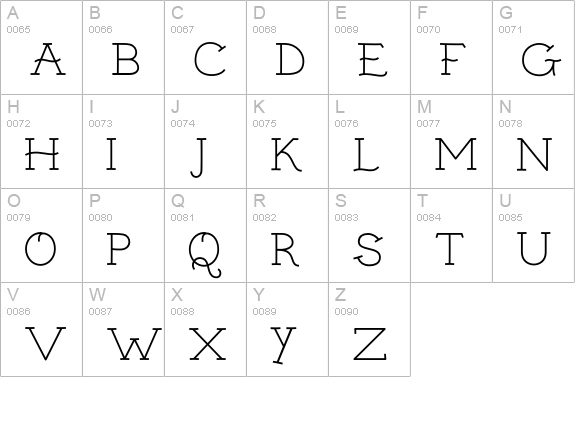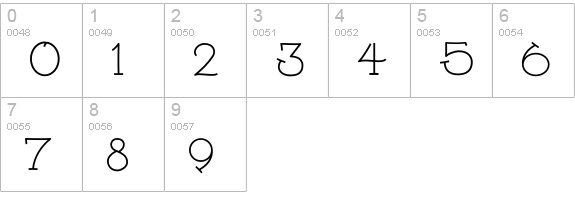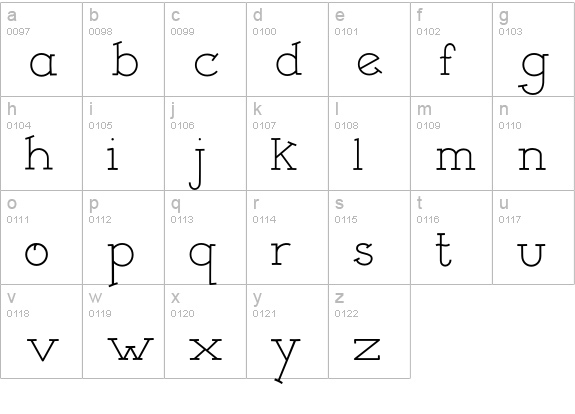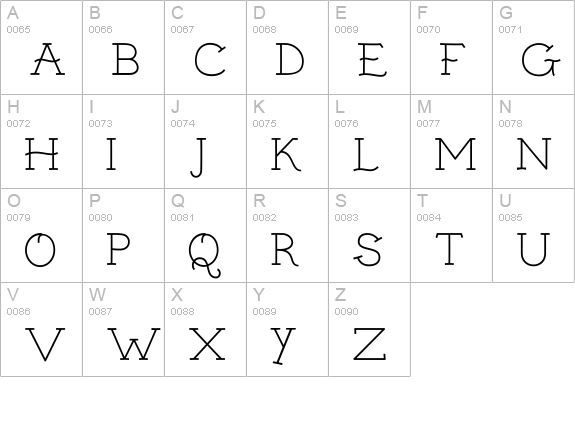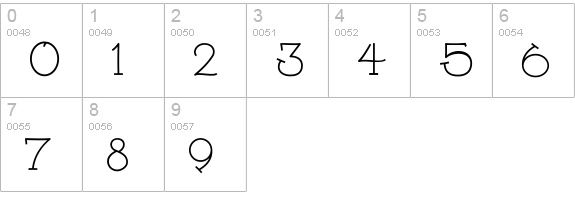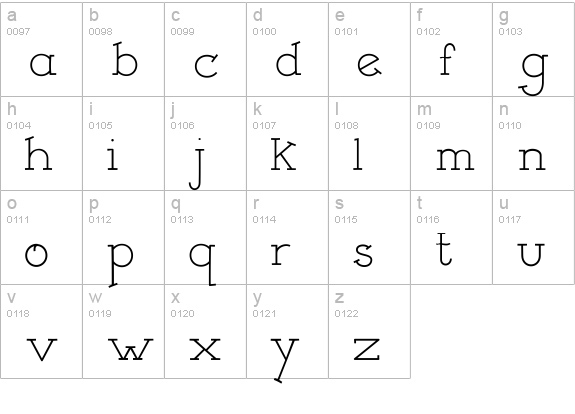
Sailor Gothic-Regular Font Details
Sailor Gothic-Regular is the standard, neutral variant in the Sailor typeface family \xE2\x80\x94 well suited to general body text, paragraphs, and standard typographic work.
Sailor Gothic-Regular font is a stunning display typeface that embodies the essence of the high seas, combining elegance with a touch of adventure. This versatile font is perfect for creating eye-catching headlines, captivating posters, and unique branding materials. Its bold and distinctive letterforms make a powerful statement, commanding attention and leaving a lasting impression. With its sleek and modern design, Sailor Gothic-Regular font is guaranteed to stand out from the crowd. Its sharp edges and clean lines evoke a sense of sophistication and professionalism, making it suitable for a wide range of projects, from corporate presentations to fashion editorials. One of the best things about Sailor Gothic-Regular font is that it is free! Yes, you heard it right. This exceptional font is freely available to download at FontsMarket.com. Whether you are a professional designer looking for a new addition to your font library or a student working on a personal project, you can now access this amazing font without spending a dime. Not only is Sailor Gothic-Regular font visually striking, but it also offers excellent readability, ensuring that your message is conveyed effortlessly. Its well-balanced proportions and carefully crafted letterforms make it a joy to read, whether in small body text or large headlines. So why wait? Unlock your creativity and download Sailor Gothic-Regular font today from FontsMarket.com. With its free availability and exceptional design, this font is a must-have for anyone seeking to make a bold statement and leave a lasting impression.